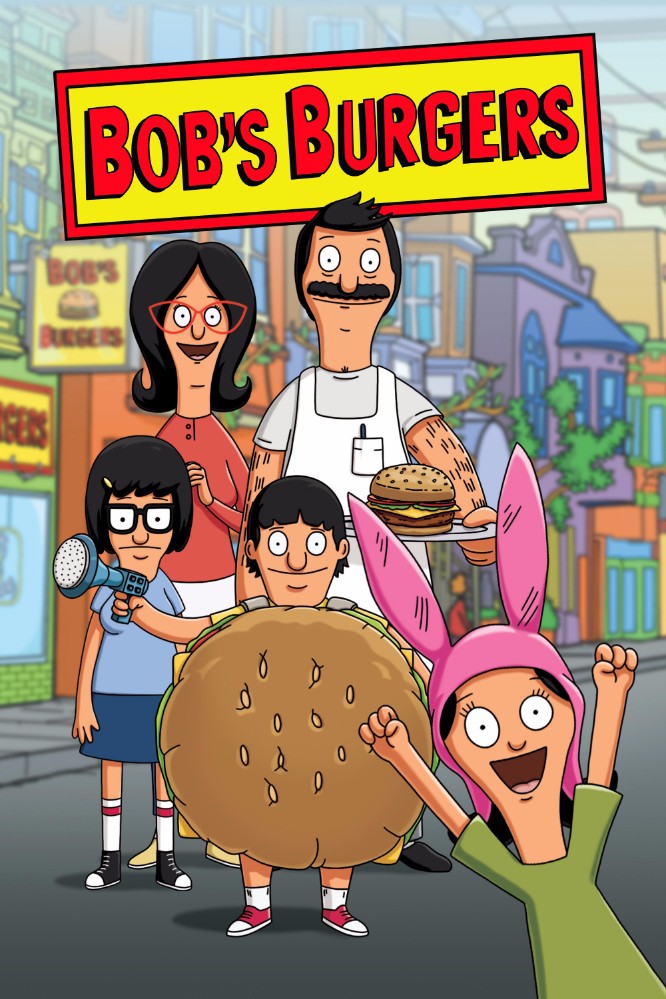
Bob's Burgers [TV Show] Font
AnimationBob’s Burgers is an American animated sitcom created by Loren Bouchard for the Fox Broadcasting Company. The show follows the Belcher family and their hamburger restaurant in a fictional town.
Bob’s Burgers, a cartoon font designed by Jayde Garrow is the closest match available for the title lettering of the series. The font is available in two variations and is free for personal use. You can download it for free in the Fonts Used Section.